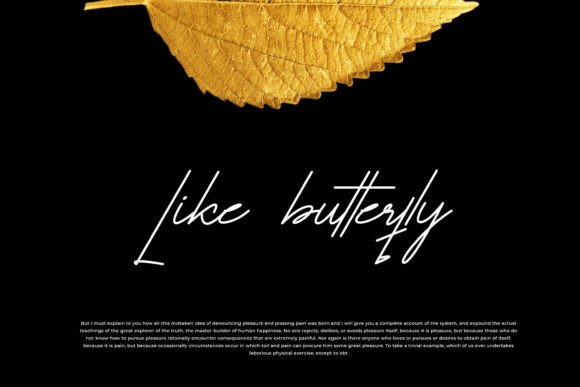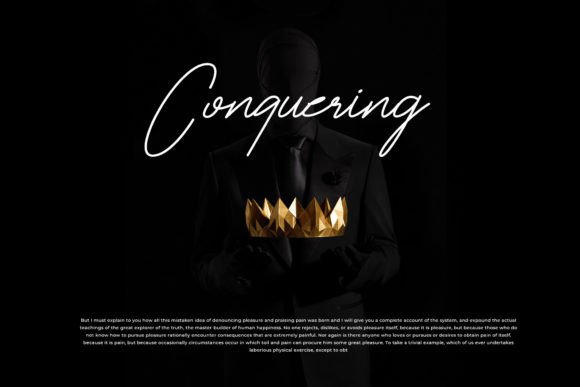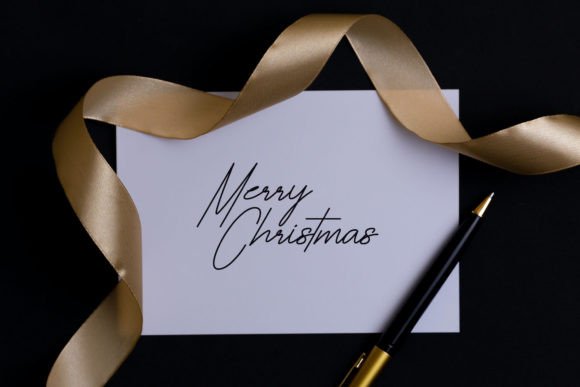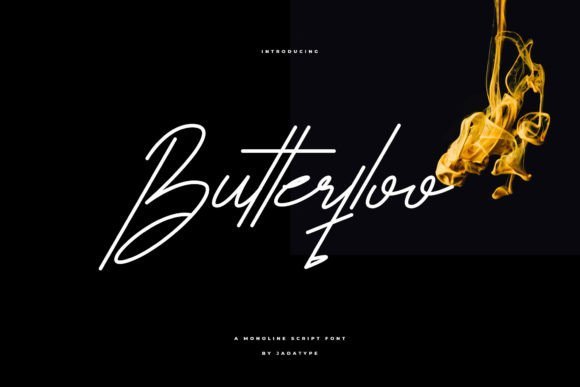
Introduction to Butterfloo Font
Butterfloo is a magical script font carefully created with a touch of elegance.
Whether you’re looking for fonts for Instagram or calligraphy scripts for DIY projects, this font will turn any creative idea into a true piece of art .
Butterfloo Font offers exceptional quality and versatility, making it a valuable addition to your design toolkit. Whether you’re creating for personal projects or commercial use, Butterfloo Font delivers professional results.